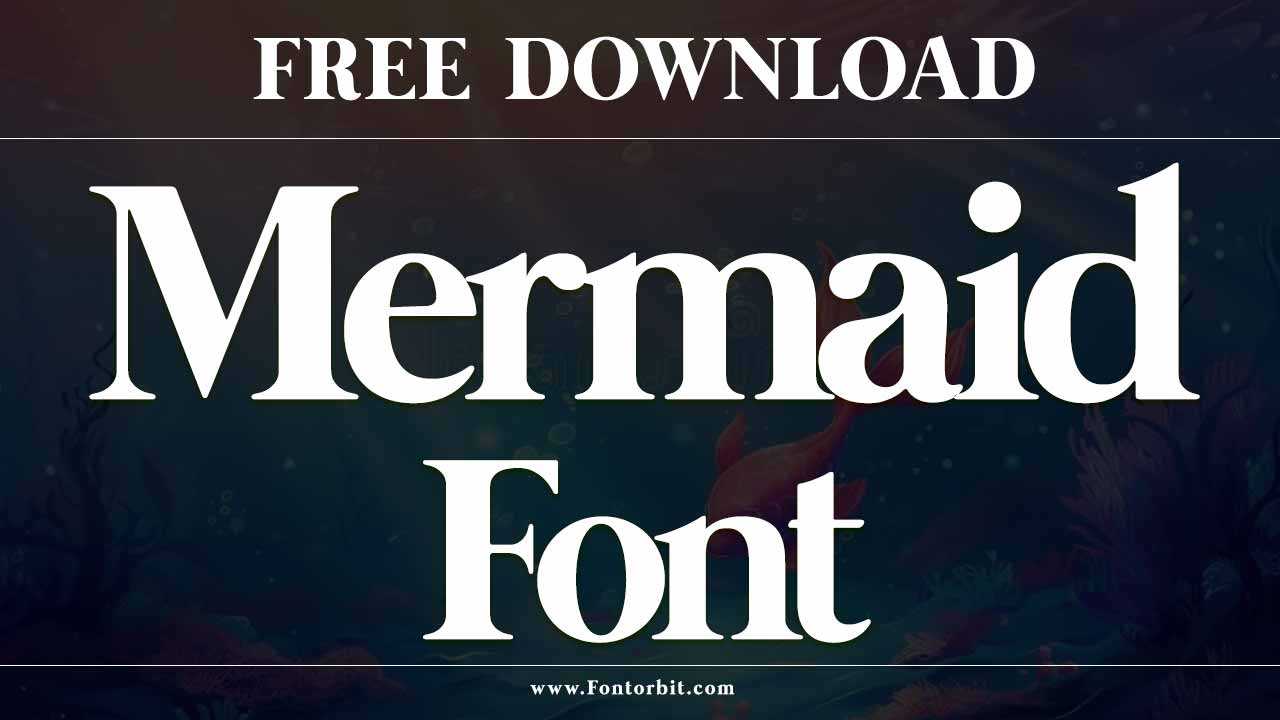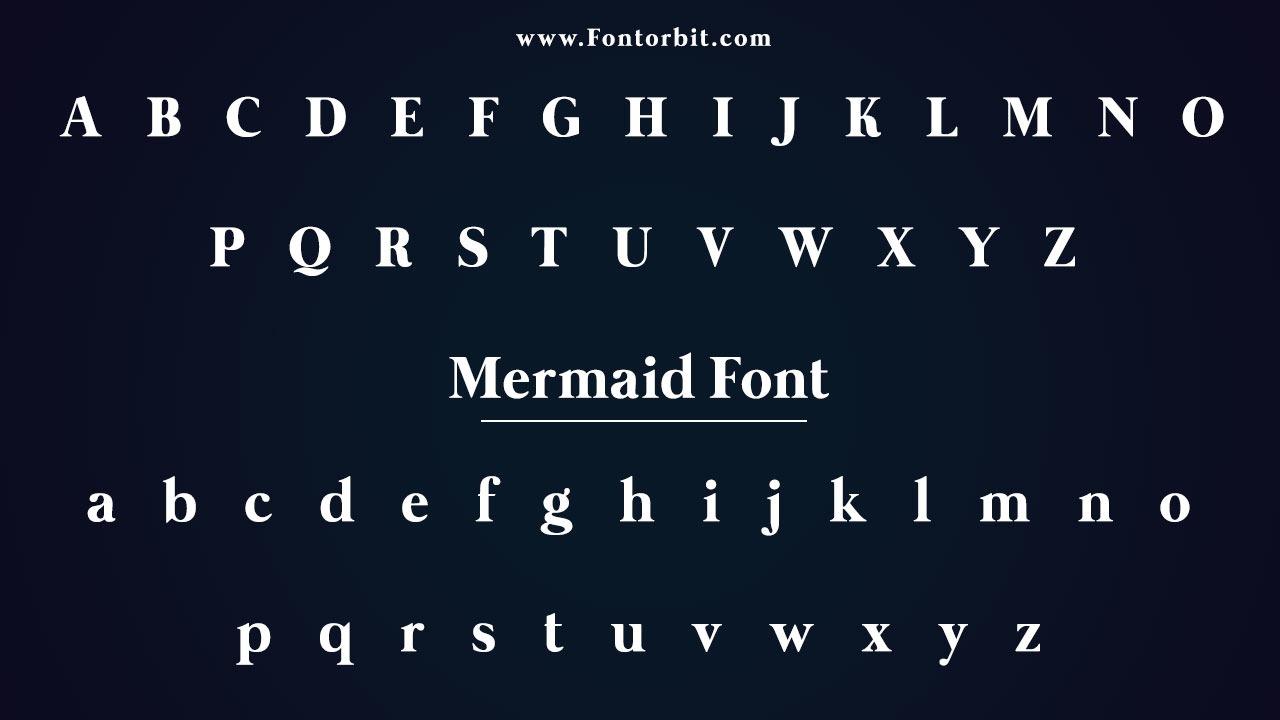
Mermaid Font, designed by Scott Simpson, is a sophisticated serif typeface that blends modern and vintage aesthetics. Whether you are working on Adobe Illustrator, Corel Draw, or Microsoft Word, this font enhances your design with a high-contrast and elegant touch. Perfect for branding, posters, and logos, Mermaid Font is a go-to choice for designers looking for a mix of classic and contemporary appeal.
Key Features of Mermaid Font
- Font Style: High-contrast serif
- Supports: Italics, Bold, and Special Characters
- Best for: Logos, branding, book covers, posters, labels
Mermaid Font Family Names
- Mermaid Bold 700
- Mermaid Swash Caps Bold 700
Where Can You Use Mermaid Font?
Mermaid Font is a versatile typeface, ideal for both print and digital projects. Here are some common uses:
- Logos & Branding: Adds a sophisticated and professional look.
- Posters & Labels: This makes your text stand out with a vintage touch.
- Web Design: Enhances headlines and call-to-action buttons.
- Editorial & Books: Ideal for creating elegant book covers.
- Invitations & Wedding Cards: Gives a graceful and timeless appeal.
Mermaid Font vs. Similar Fonts: Comparison
| Feature | Mermaid Font | Lust Serif | Playfair Display | Didot |
|---|---|---|---|---|
| Style | High-contrast serif | Classic serif | Modern serif | Elegant serif |
| Italic & Bold Support | Yes | Yes | Yes | Yes |
| Best Use | Logos, posters, books | Luxury branding | Editorial design | Fashion magazines |
Best Font Pairings for Mermaid Font
For a balanced and elegant look, pair Mermaid Font with:
- Montserrat – A modern sans-serif font for contrast.
- Open Sans – A versatile sans-serif font for readability.
- Playfair Display – Complements Mermaid Font’s elegant strokes.
Final Thoughts
Mermaid Font is a timeless and elegant serif typeface that balances vintage and modern design. Whether you’re crafting logos, labels, posters, or website headers, this font brings a refined touch to your projects.
2. Does Mermaid Font include italics and bold styles?
Yes, it supports both italic and bold variations.
4. Is Mermaid Font a script font?
No, it is a serif font, but it has elegant strokes reminiscent of script fonts.
7. Are there similar fonts to Mermaid Font?
Yes, fonts like Lust Serif, Didot, and Playfair Display have a similar elegant feel.